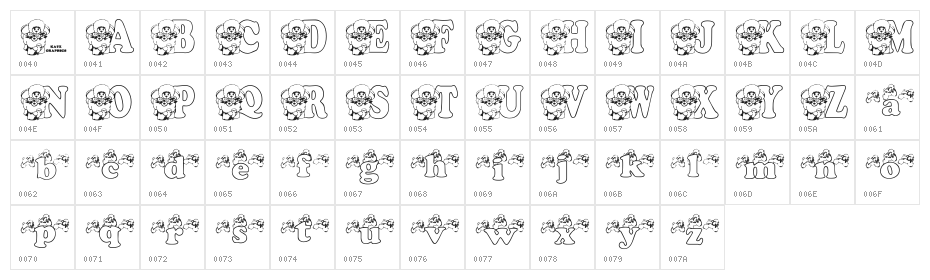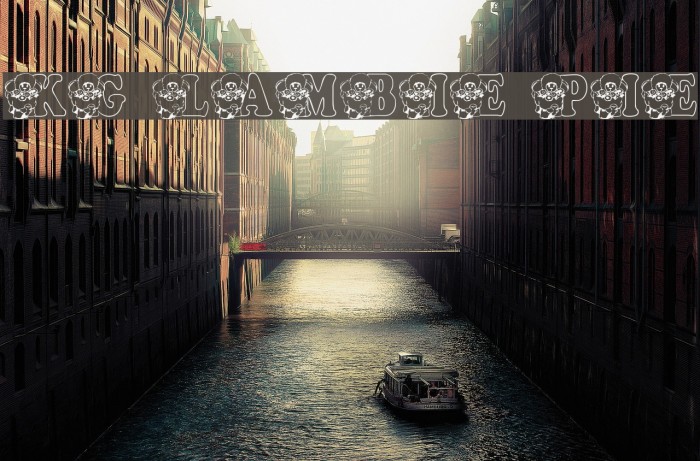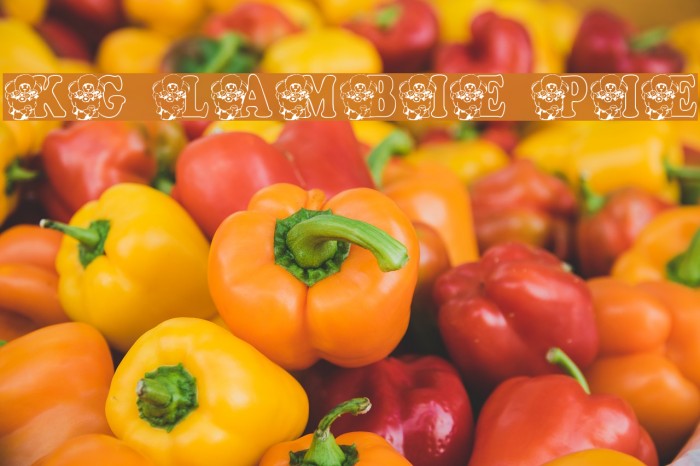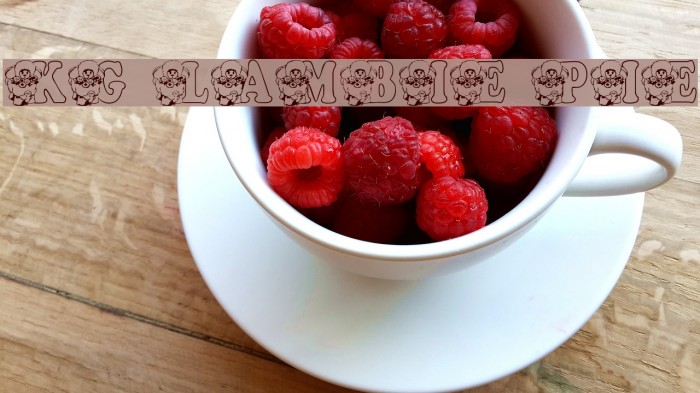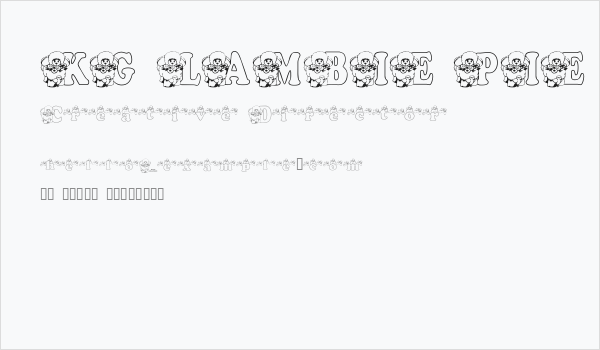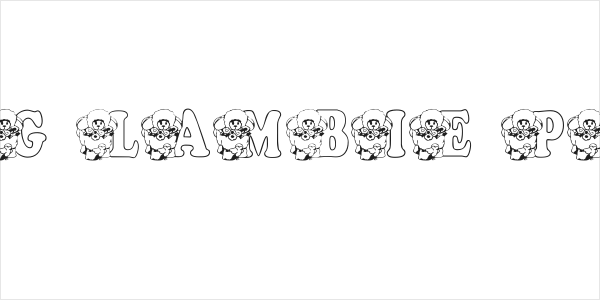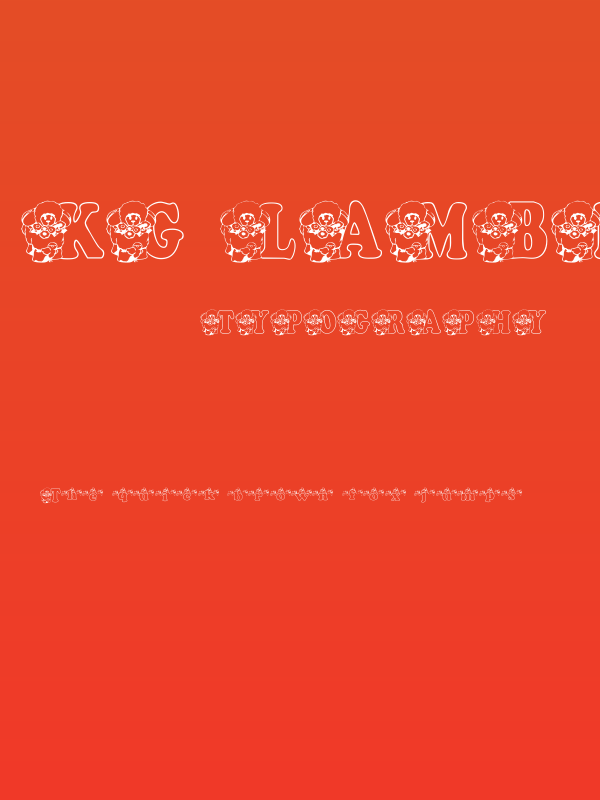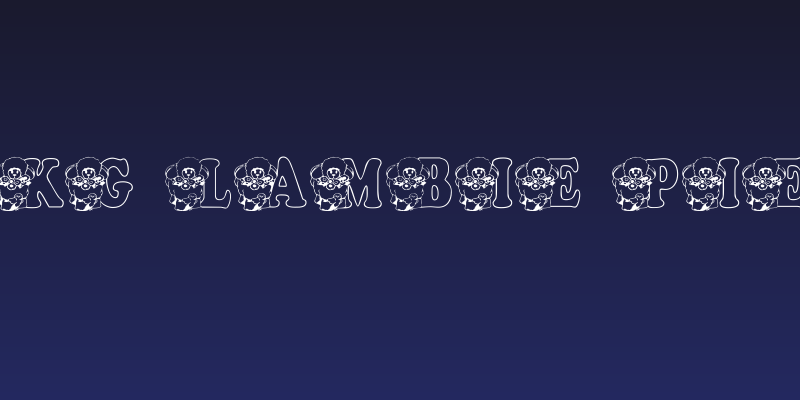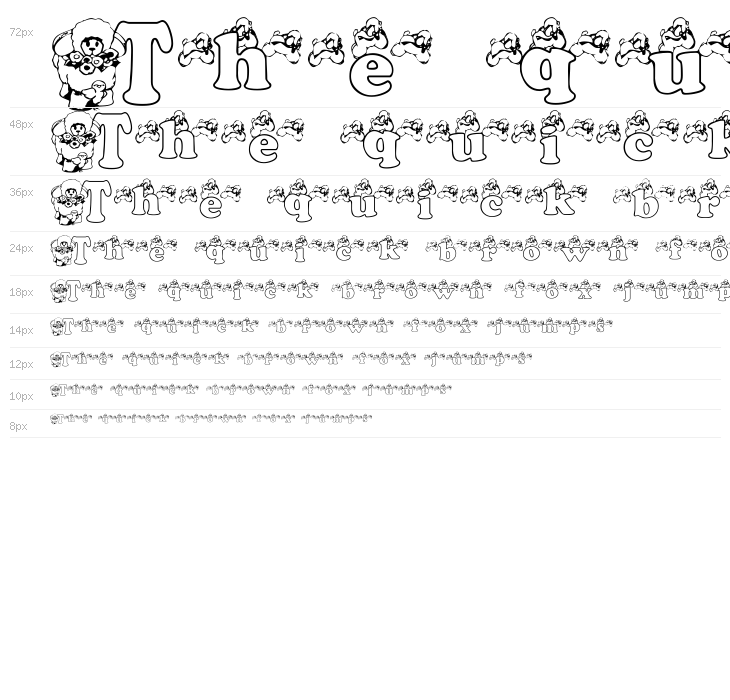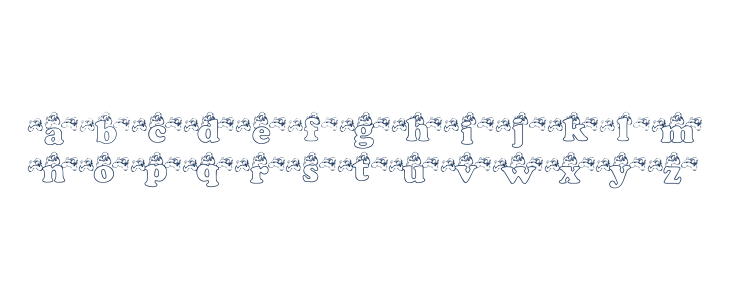
KG LAMBIE PIE Font
KG LAMBIE PIE Description
This playful and whimsical font features each letter encased within a cartoonish sheep character, creating a unique and charming appearance. The design is highly decorative, with each character being distinct due to the sheep illustration, making it ideal for projects aimed at children or for use in playful and lighthearted contexts. The font maintains a consistent style throughout, with each letter being clearly legible despite the intricate design. The characters are evenly spaced, ensuring readability while maintaining the decorative aspect. This font is perfect for adding a touch of fun and creativity to any project.
| Proposed Projects | Ideal for children's books, playful invitations, educational materials, and creative branding. |